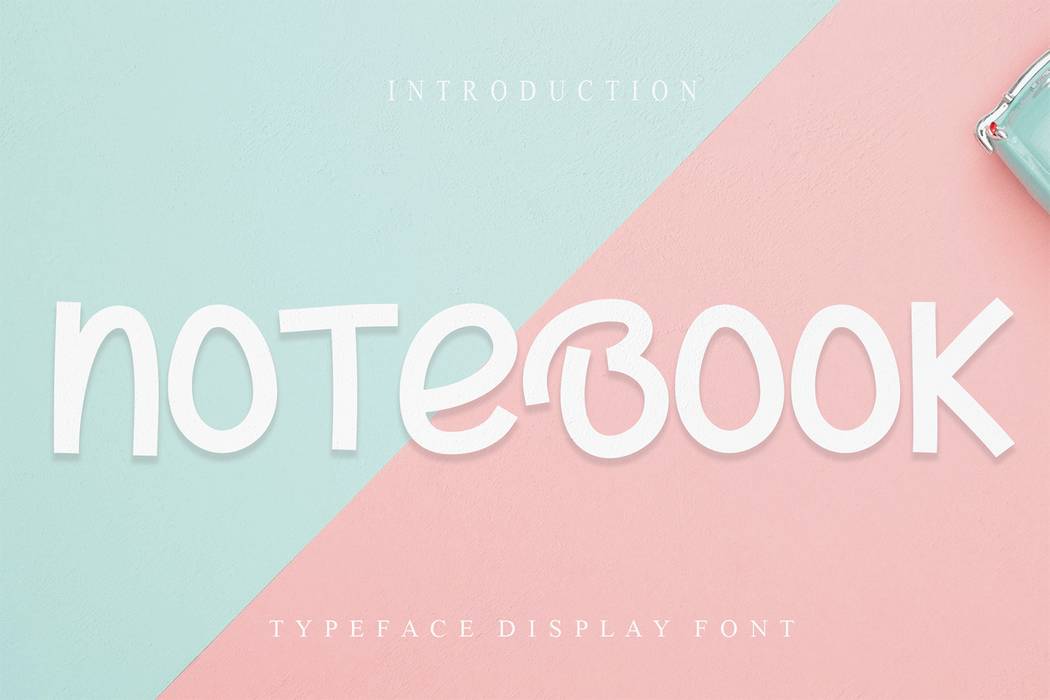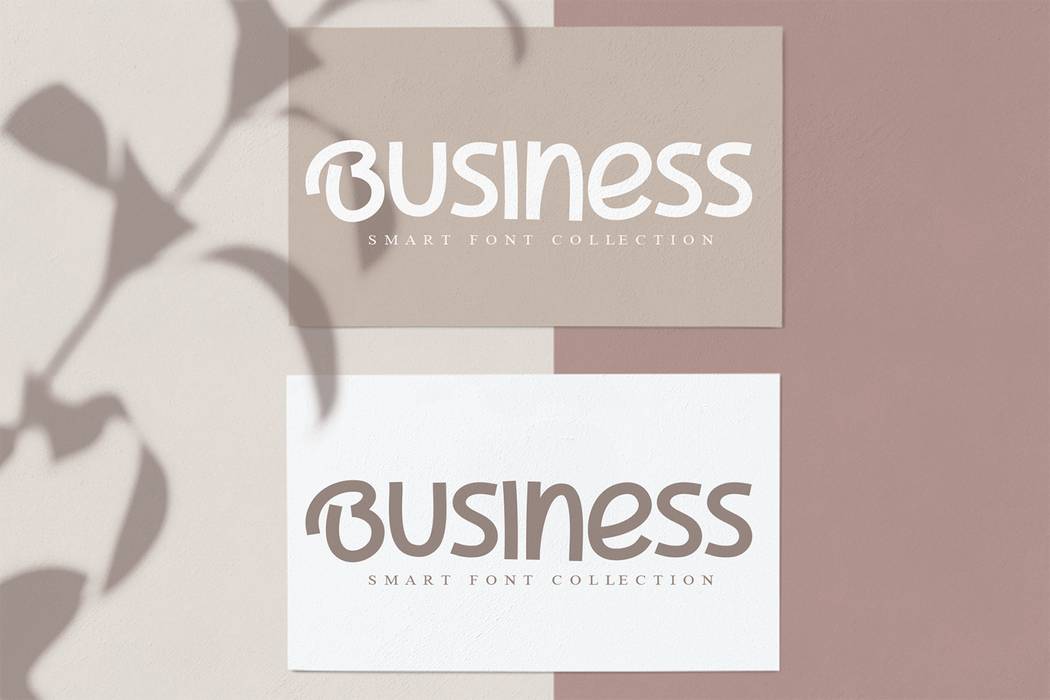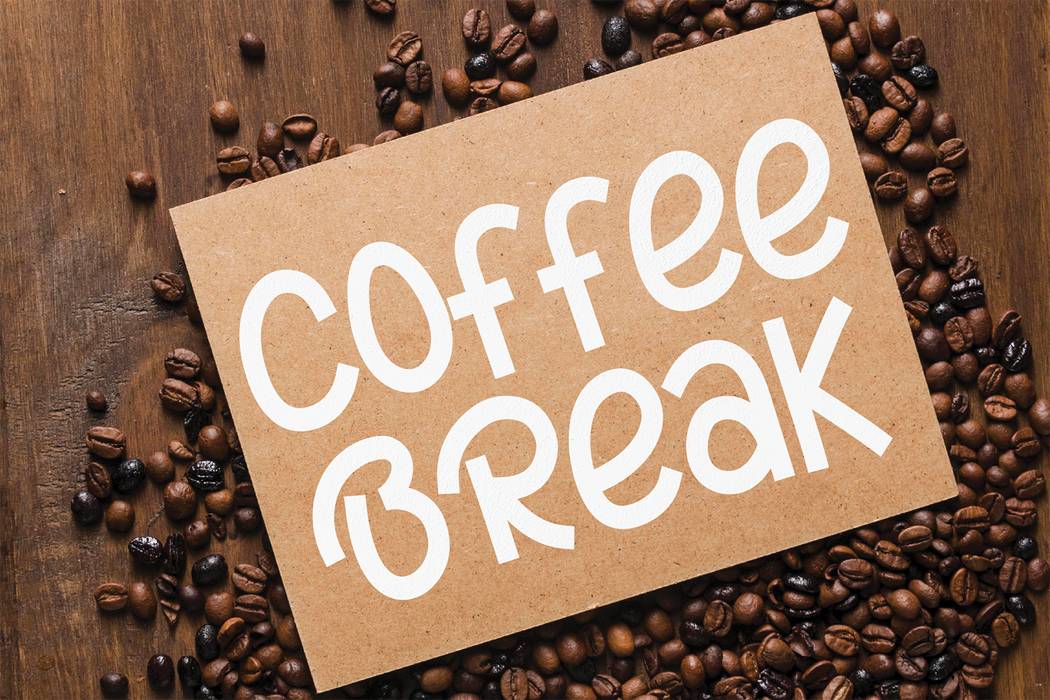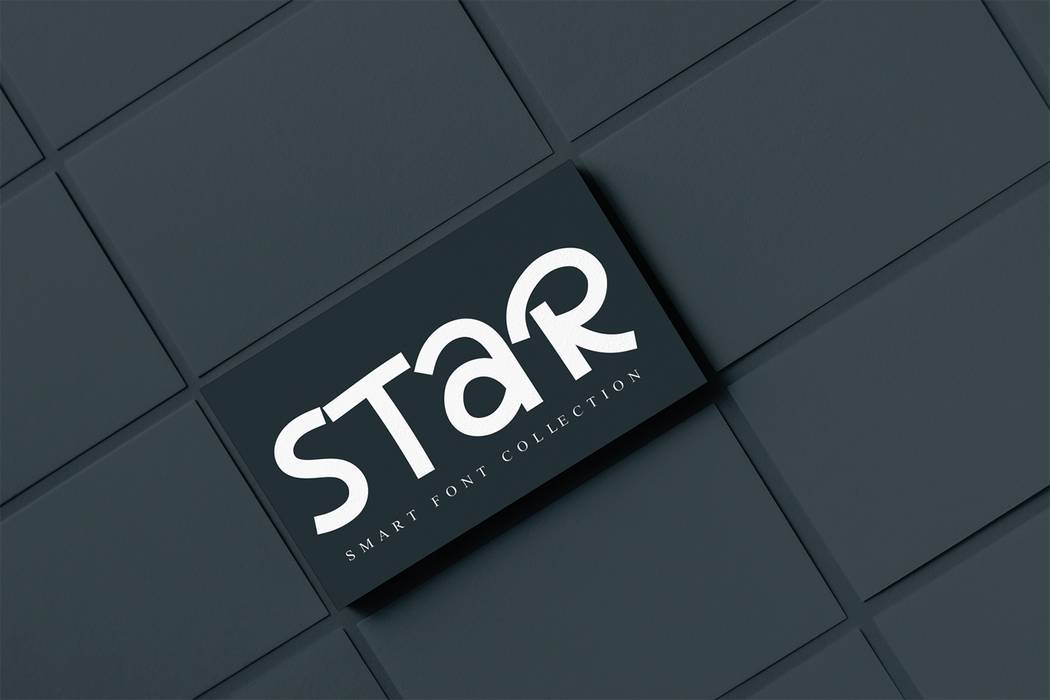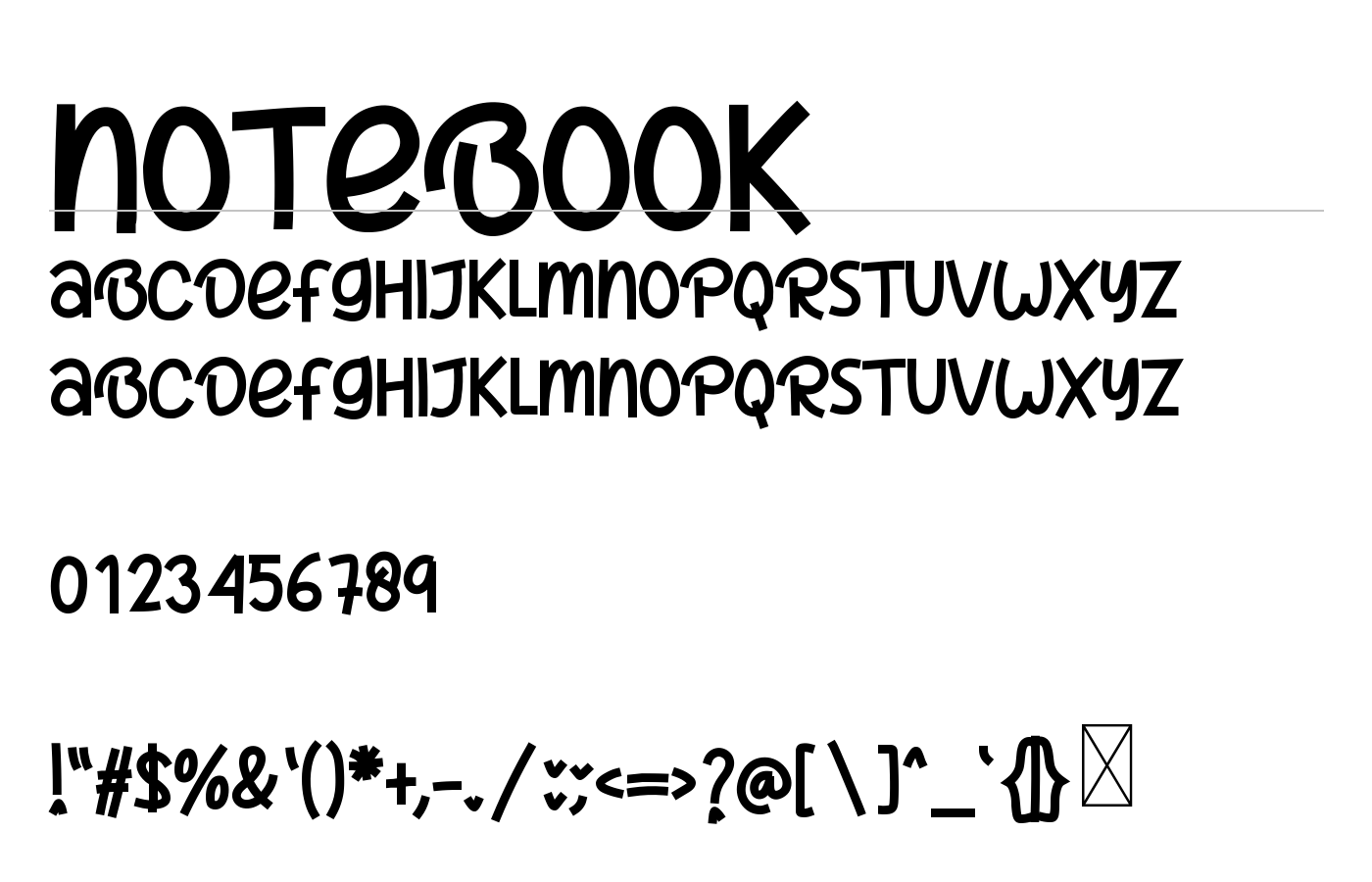
Notebook Font is a playful and informal sans serif typeface with a handwritten charm, featuring irregular stroke widths and quirky letter shapes that add character and warmth. Its medium weight and upright posture make it highly legible while conveying a casual, creative vibe perfect for children's materials, fun branding, or friendly digital content. This font works best in headlines, logos, and projects that benefit from a lively, approachable style that feels both unique and welcoming.
Notebook Font
About Notebook Font
| Font family | Notebook Font |